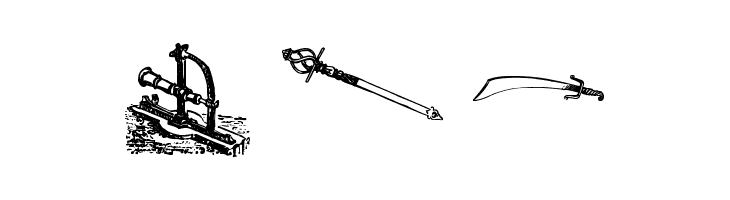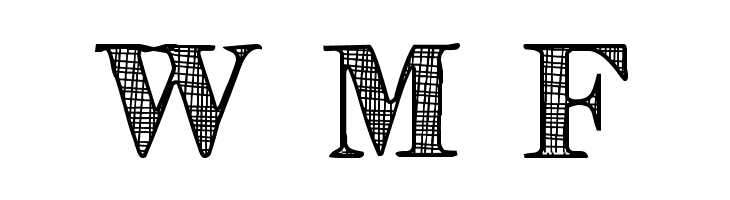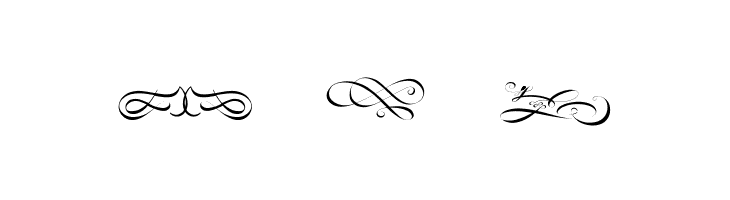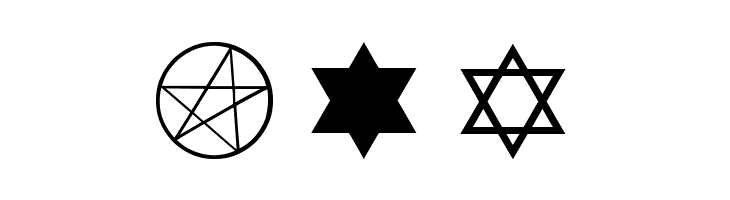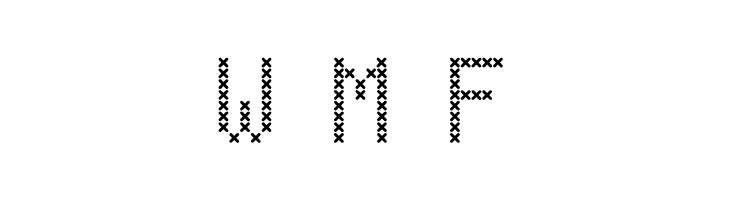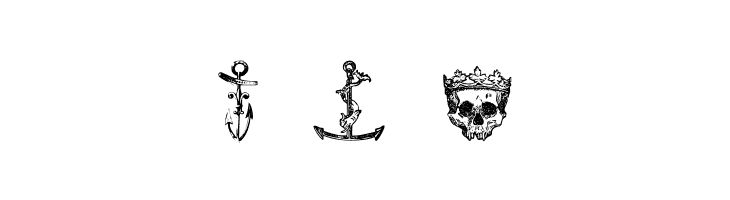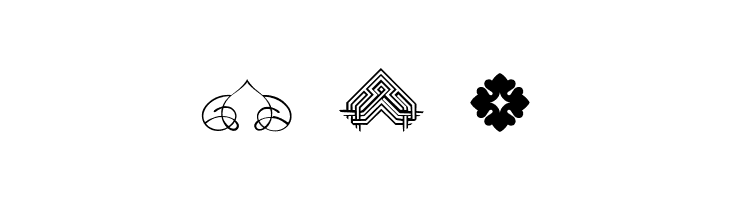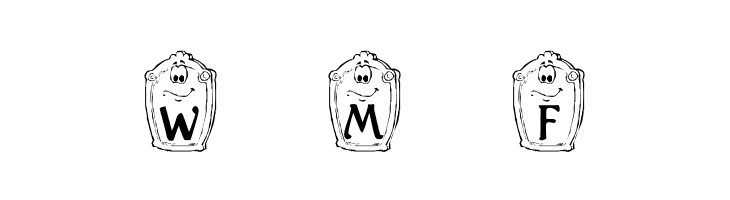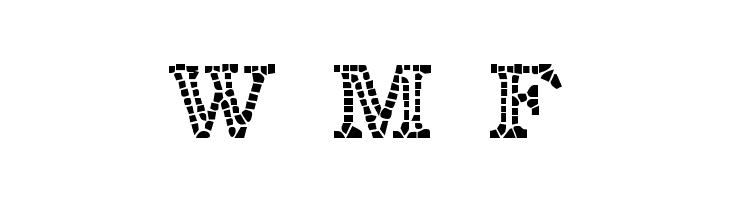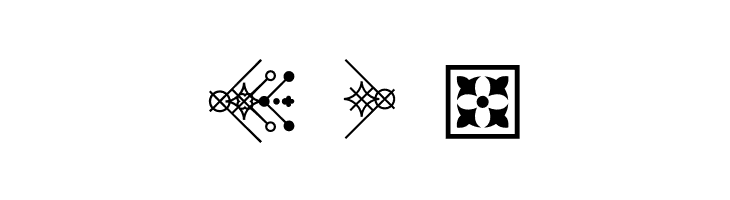
A playful decorative font made of diverse heart shapes.
A decorative, ornamental font with abstract, artistic characters.
A decorative font featuring detailed illustrations of ancient weapons.
A decorative font with intricate patterns and a vintage flair.
A decorative collection of floral and geometric symbols for artistic embellishments.
Ornamental frame-based decorative font with intricate flourishes.
A decorative star-themed dingbat font with diverse star icons.
A collection of decorative star and geometric shapes for creative design use.
A decorative font with a cross-stitch pattern, ideal for festive designs.
A decorative dingbat set with floral and ornamental motifs.
A diverse collection of ornamental and decorative dingbats.
A whimsical, mirror-framed decorative font with a fairy-tale aesthetic.
A playful, decorative set of frames and arrows with unique patterns and handwritten words.
A decorative font with a fish scale pattern, offering a bold and geometric style.
Ornamental dingbat font with diverse decorative motifs.
A versatile collection of decorative frames and shapes with unique styles.
A decorative font with intricate, ornate details reminiscent of Arabic calligraphy.
A decorative serif font with elegant flourishes and bold characters.
A bold, decorative serif font with classical Roman influences.
Ornamental dingbat font with diverse decorative symbols.
A whimsical, flower-embellished decorative font with a playful, hand-drawn style.